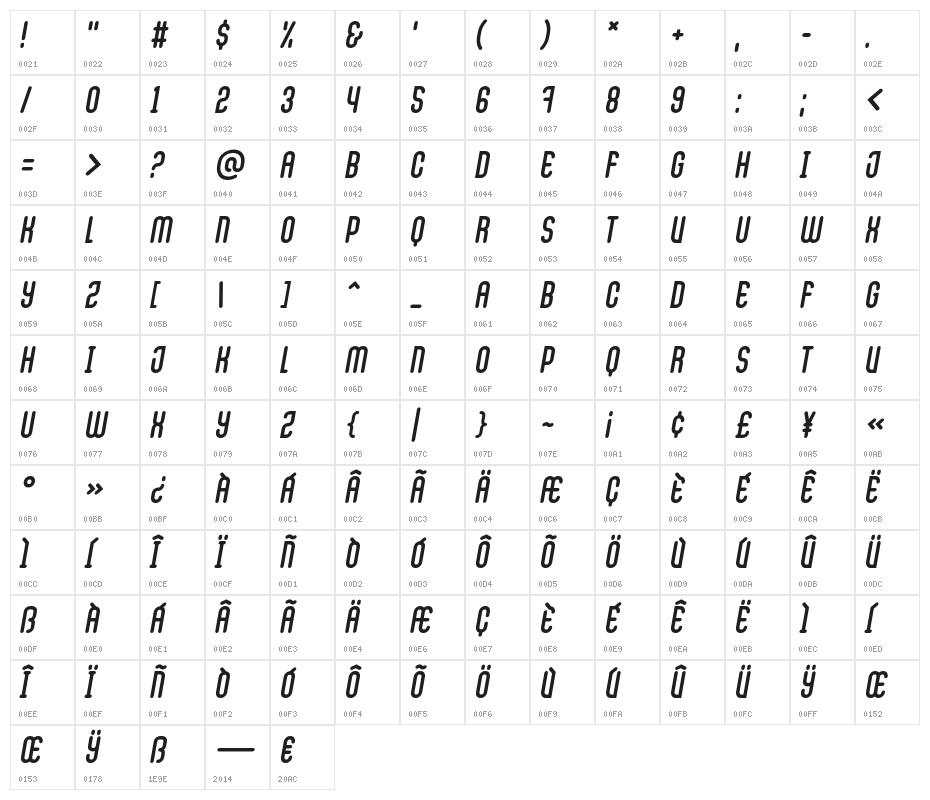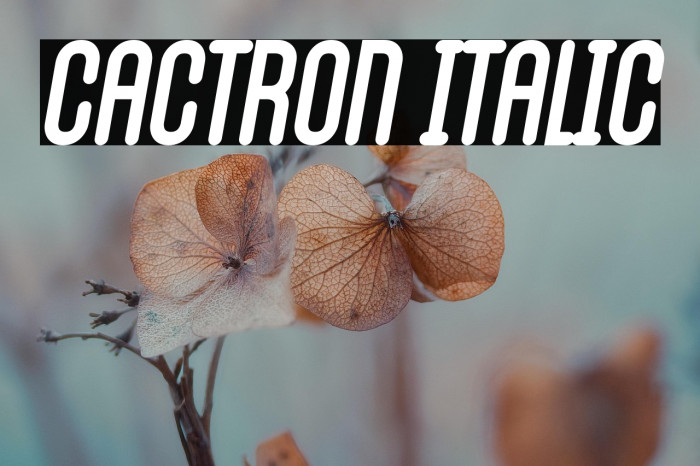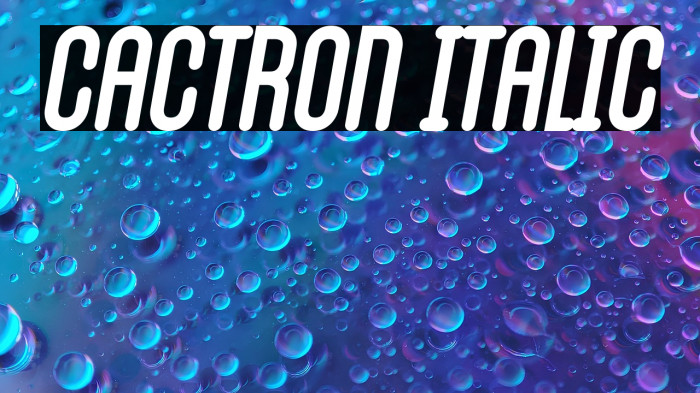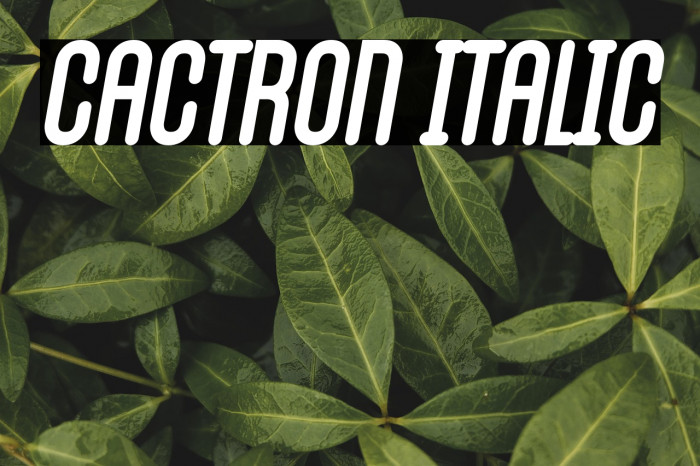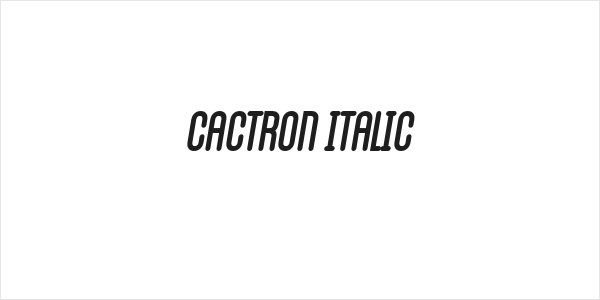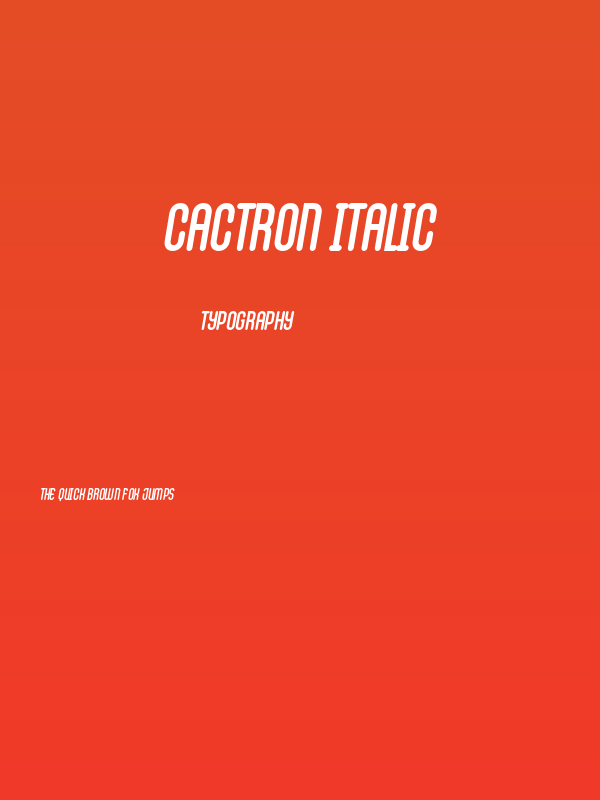
Cactron Italic Font
Cactron Italic Description
This font features a modern and dynamic style with a distinct italic slant, giving it a sense of motion and energy. The characters are bold and rounded, with a consistent stroke width that provides a uniform appearance. The uppercase and lowercase letters maintain a cohesive look, while the numerals and special characters are designed to complement the overall aesthetic. The font's smooth curves and clean lines make it versatile for various design applications, offering a contemporary feel that can enhance visual appeal.